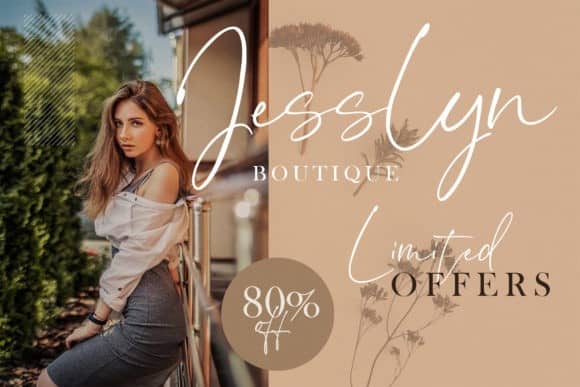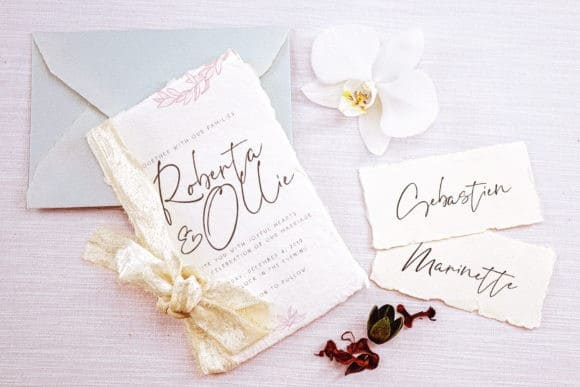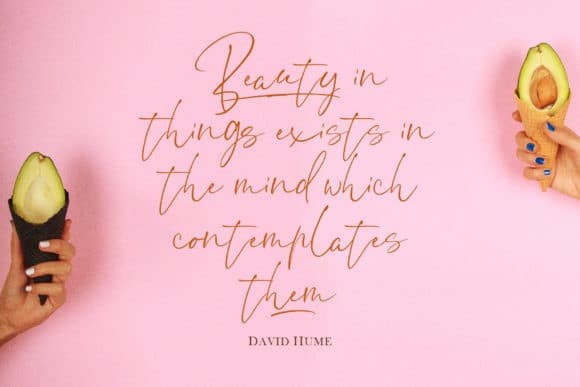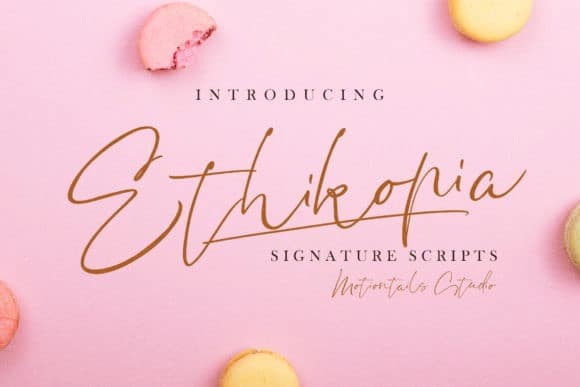
Ethikopia Handwritten Font
Ethikopia Handwritten Font is a unique, cool and modern handwritten typeface manufactured by motiontailstudio. Masterfully designed to become a true favorite, this font has the potential to bring each of your creative ideas to the highest level!